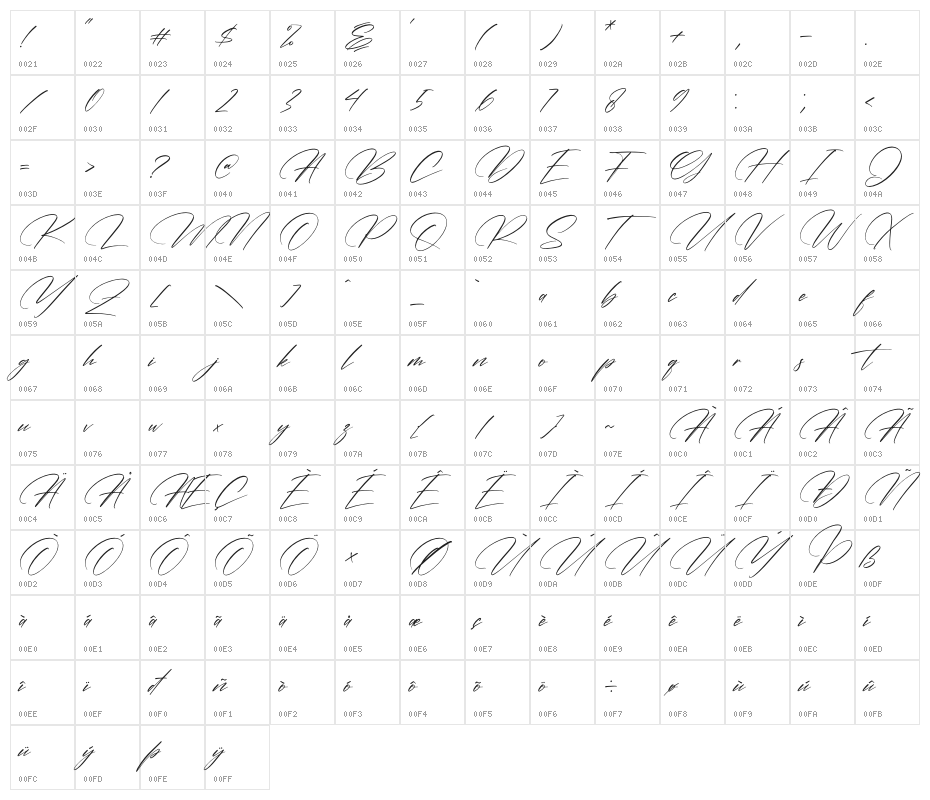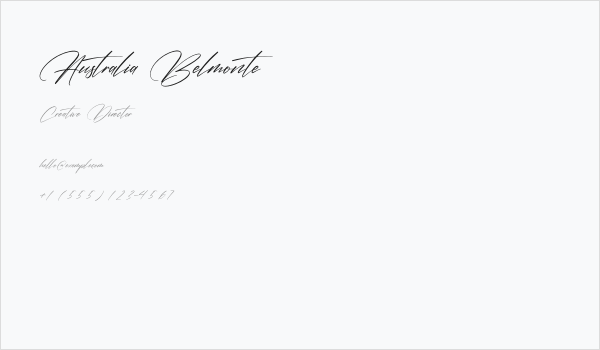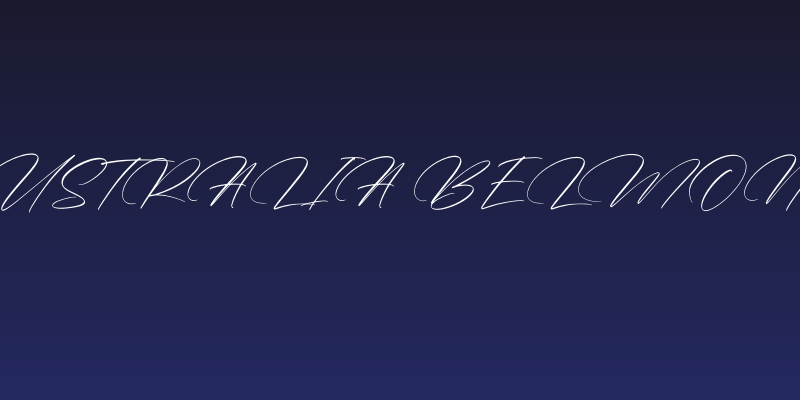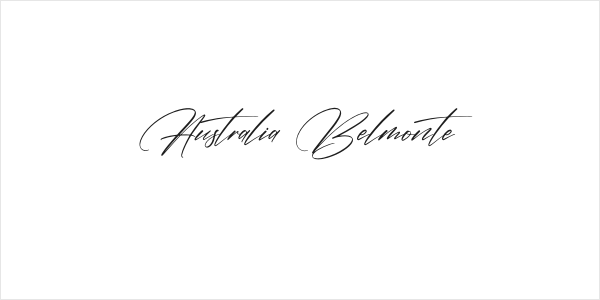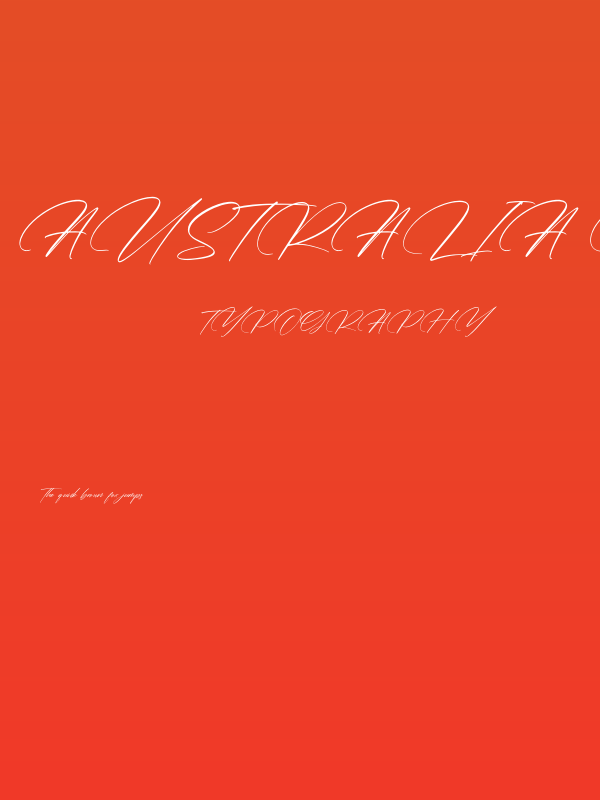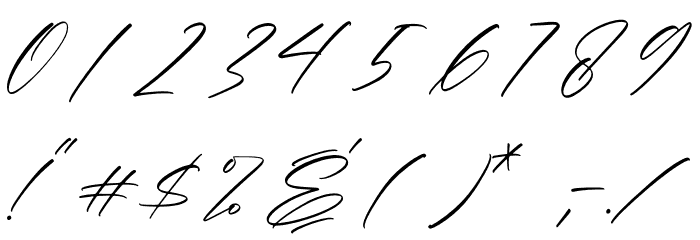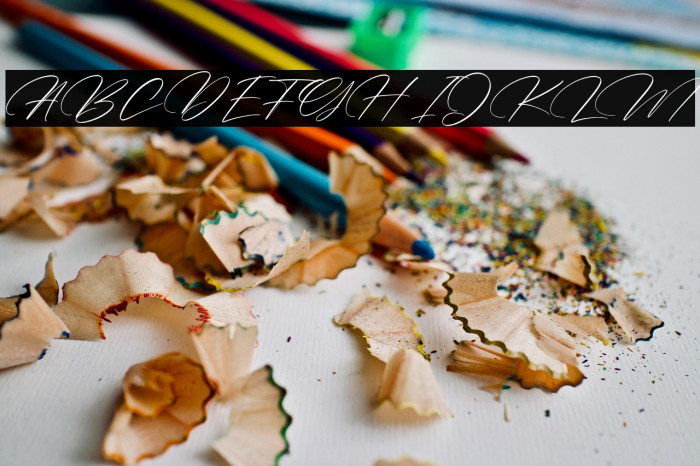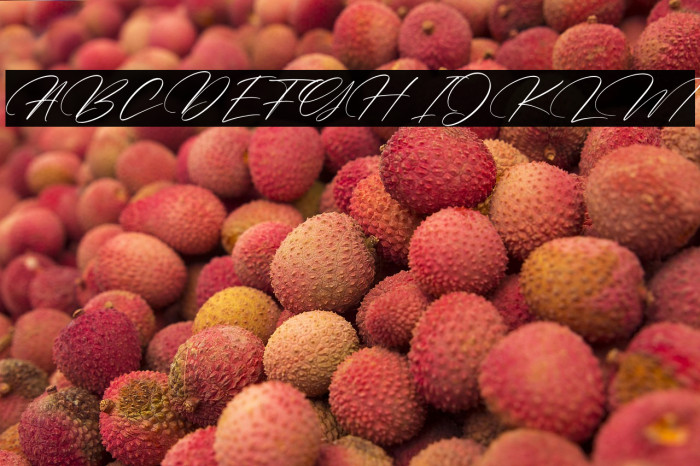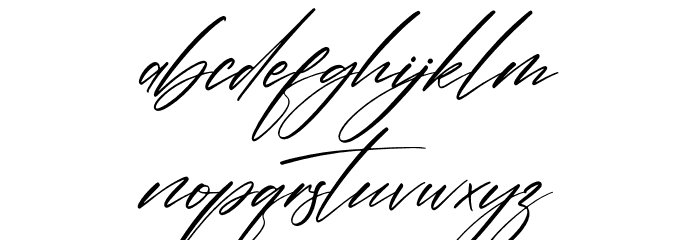
Australia Belmonte Font
Australia Belmonte Description
This elegant script font features a flowing, cursive style that mimics the fluidity of natural handwriting. The uppercase letters are gracefully elongated with sweeping curves, while the lowercase letters maintain a consistent slant, adding to the overall sophisticated appearance. The numerals and special characters are designed with the same fluidity, ensuring a cohesive look across all text elements. This font exudes a sense of elegance and refinement, making it ideal for projects that require a personal touch.
| Overall Style | Elegant, Sophisticated |
| Use Case | Logos, Invitations, Personal Branding |
| Proposed Projects | Ideal for wedding invitations, greeting cards, personal branding, and elegant logo designs. |